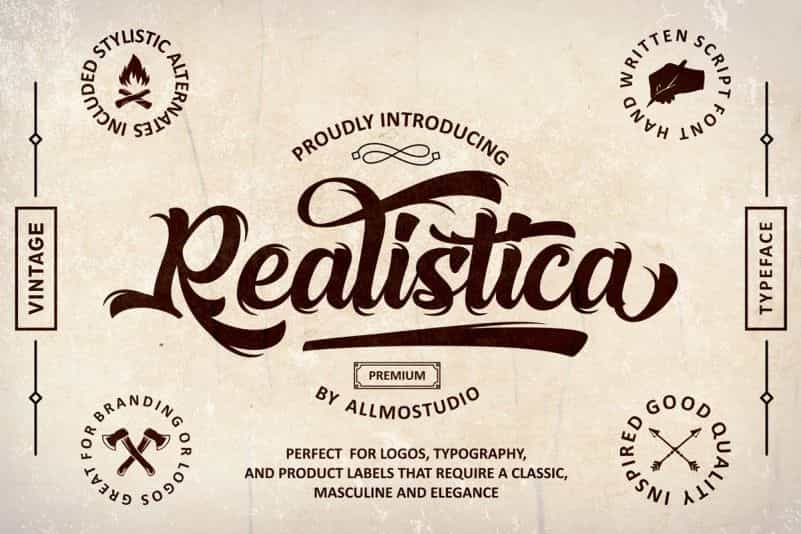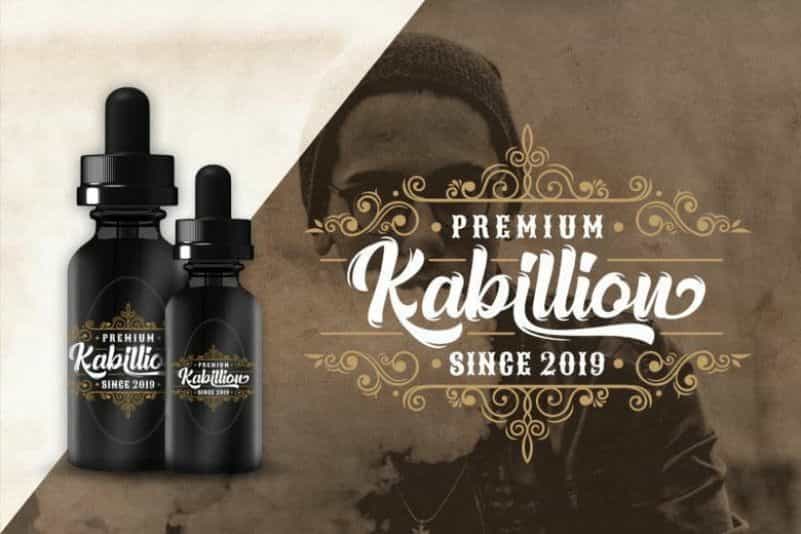
Introducing Realistica Font. Realistica Font was designed to have a little bit of vintage style and at the same time modern design I have created hand lettering to make your design more awesome. This font will fit on all media, and will be just perfect for your vintage design, t-shirt, logo, labels, badges, posters, and so on.